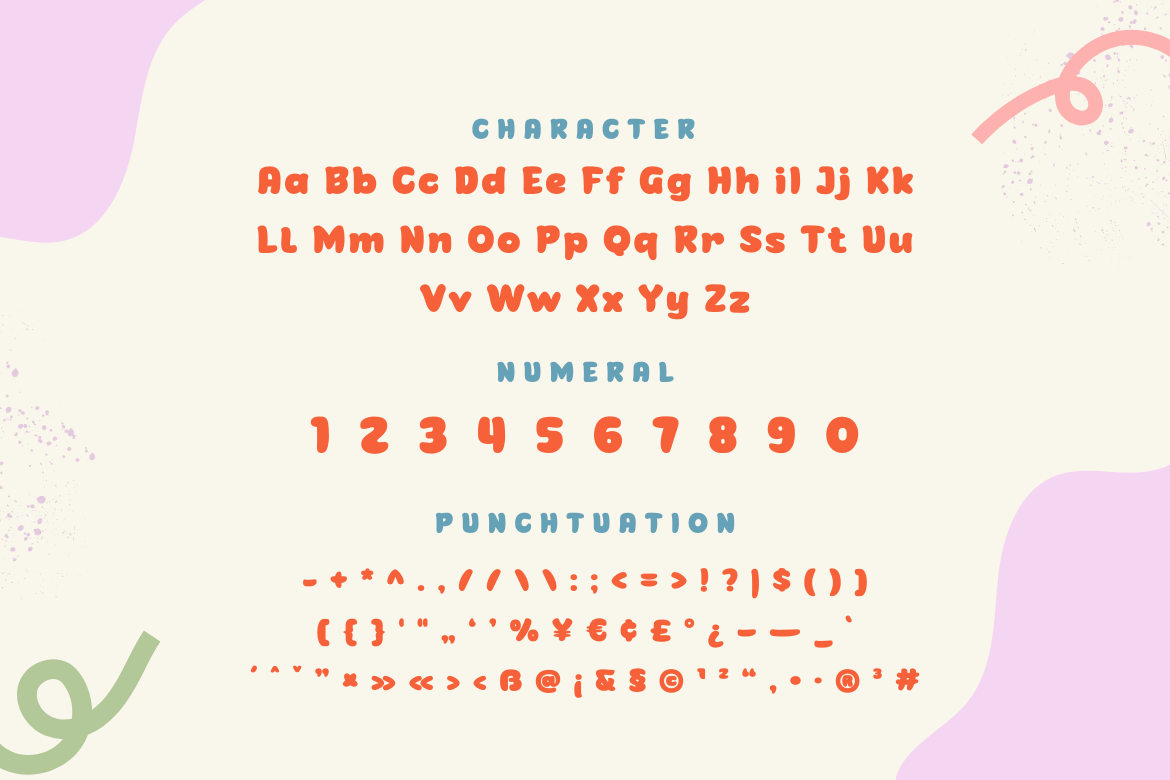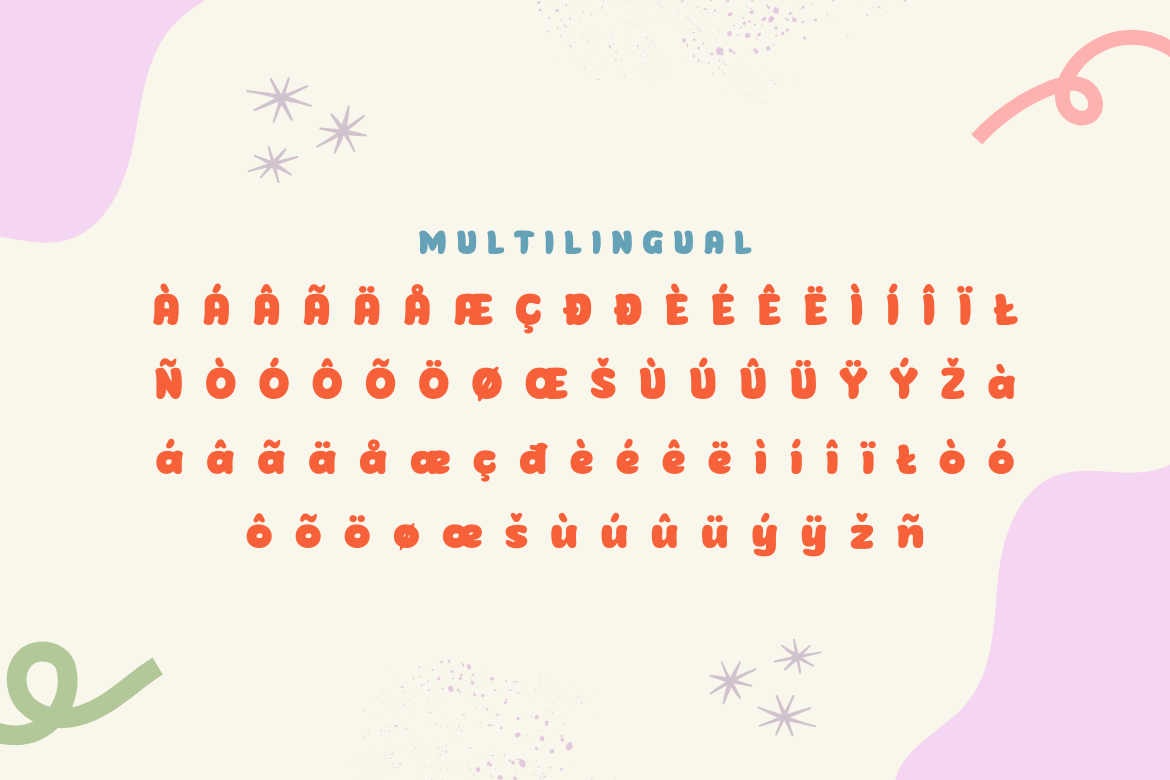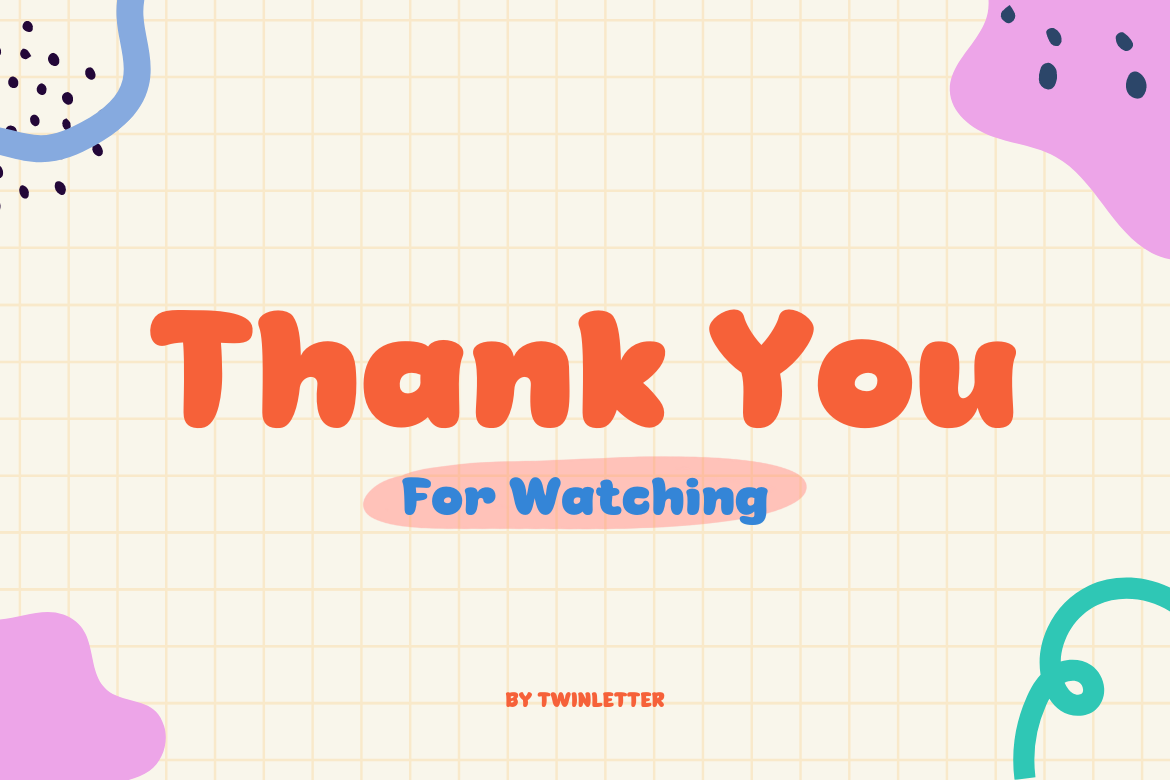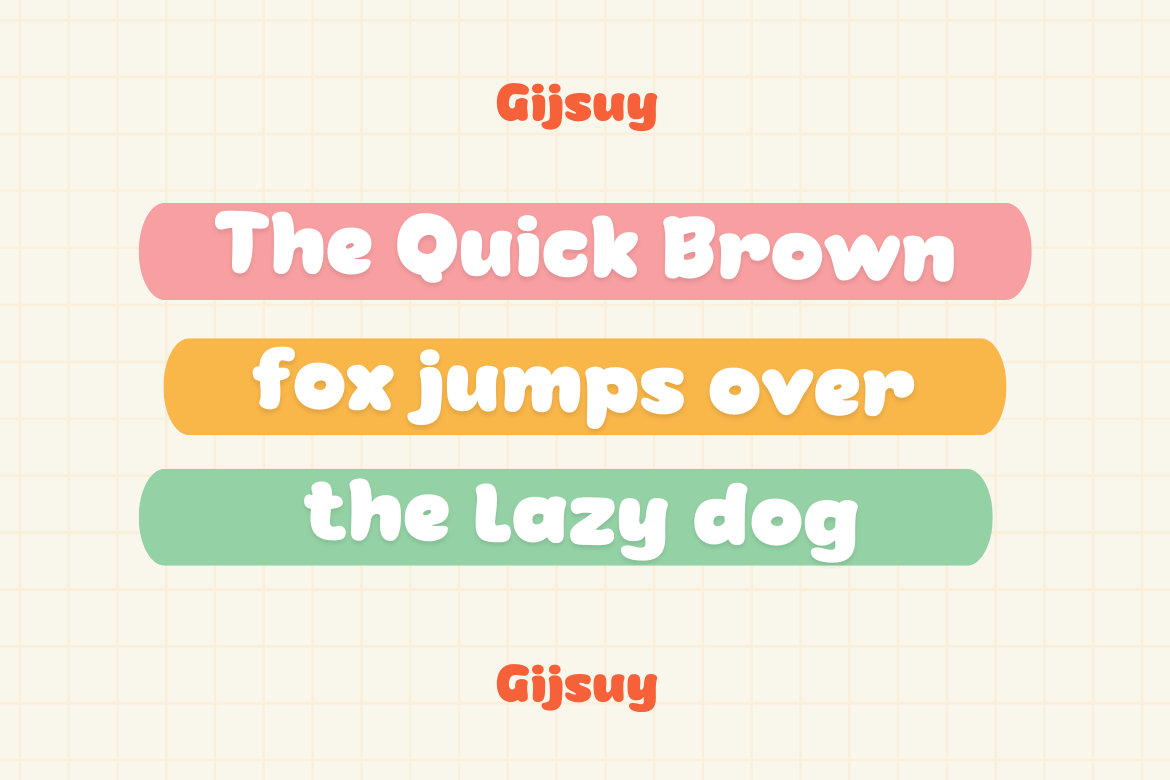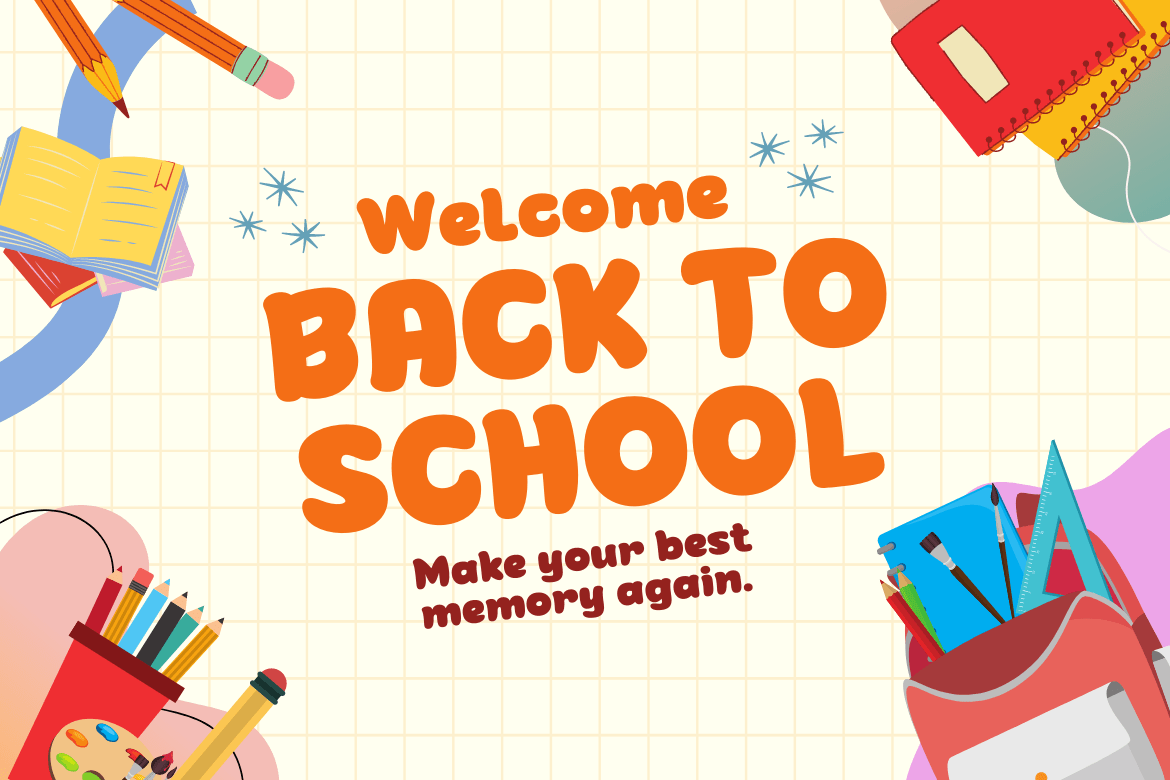
Gijsuy
Perhaps you’re looking for a lovely and approachable font. That is why I presented my new typeface!
Gijsuy, please introduce yourself. The idea of spreading spilled ink and filling the shape of letters inspired this playful handwritten bold typeface. The rounded corners are pleasing to the eye and give the impression of friendliness to the viewer. Greeting cards, children’s books, quotes, posters, invitations, business cards, movie title banners, and more can all benefit from this design.
• Fonts include multilingual support for; Afrikaans, Albanian, Croatian, Czech, Danish, Dutch, English, Estonian, Finnish, French, German, Hungarian, Italian, Norwegian, Polish, Portuguese, Slovak, Slovenian, Spanish, Swedish